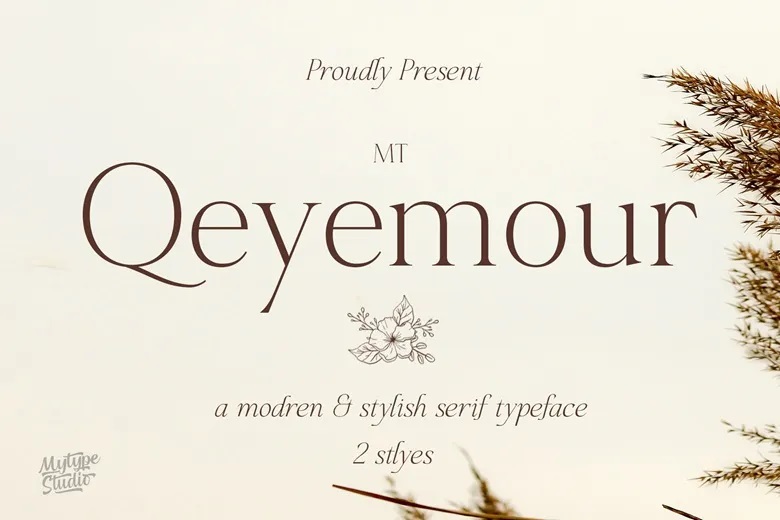
Mt Qeyemour Font
MT Qeyemour is a new, elegant serif typeface that looks perfect with its smooth lines and refined shapes.. Its professional look makes it suitable for use in any design work ranging from magazines to brand identities. Great for using to display a sense of professionalism and modernity in a number of different projects.
Mt Qeyemour Serif Font